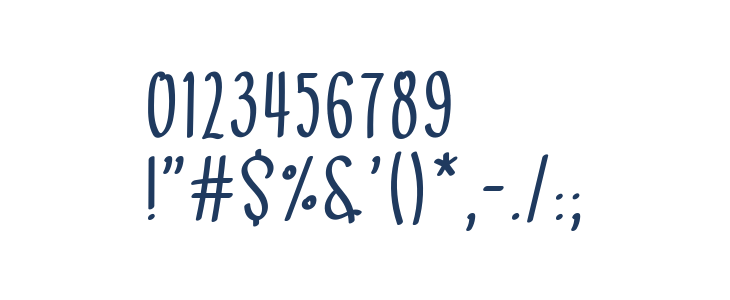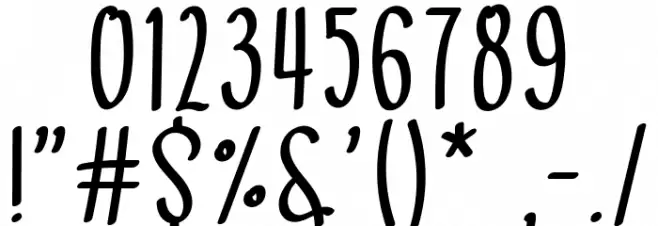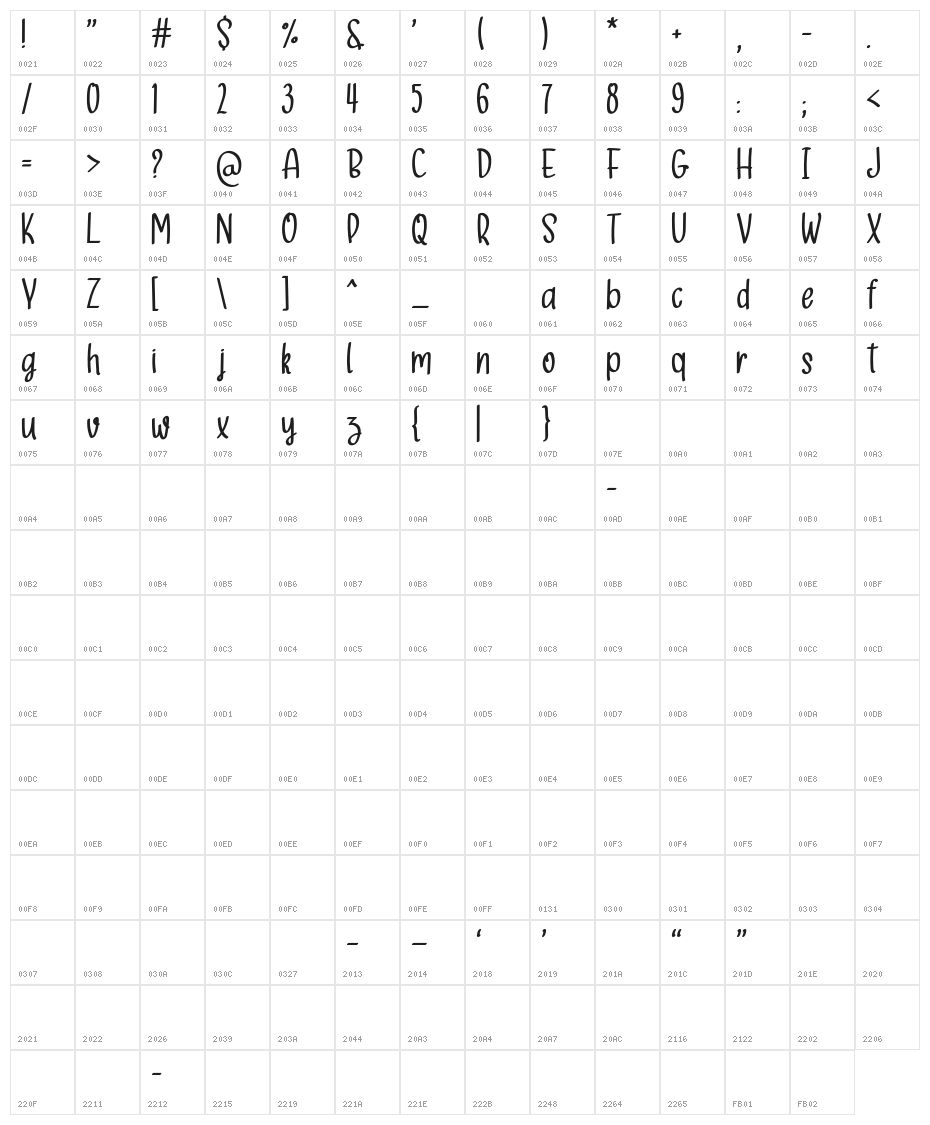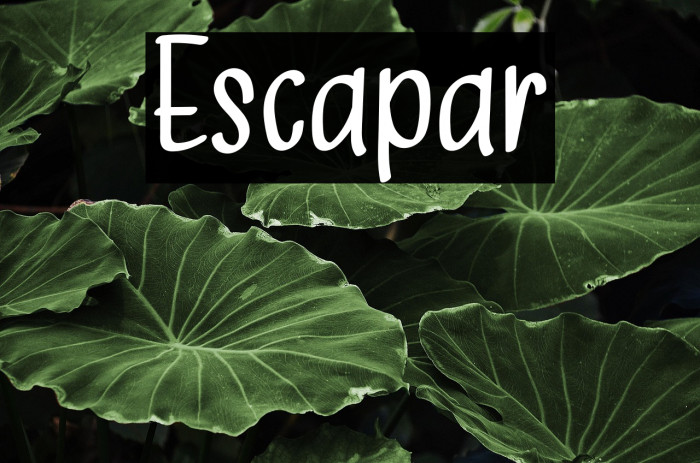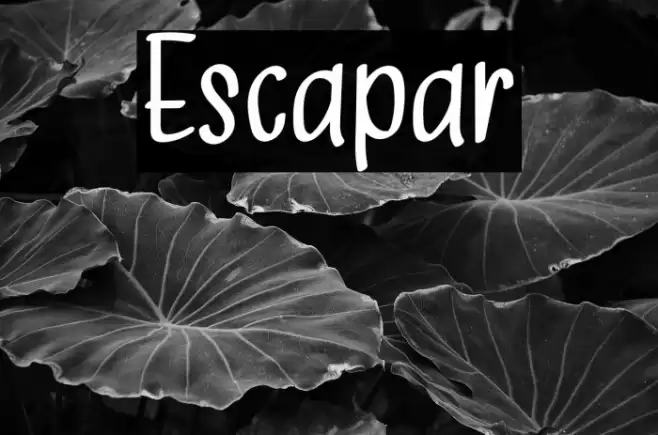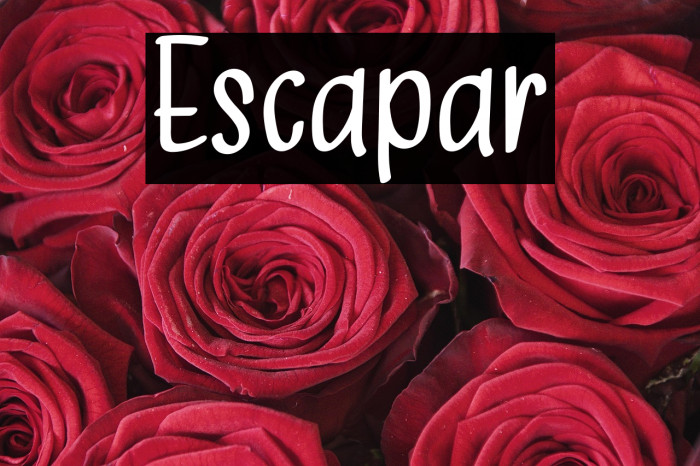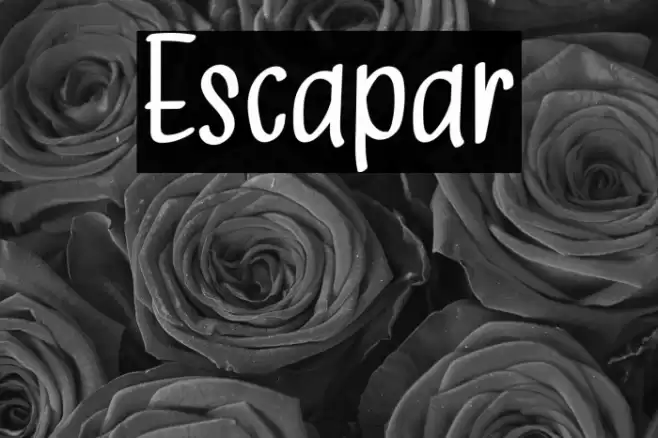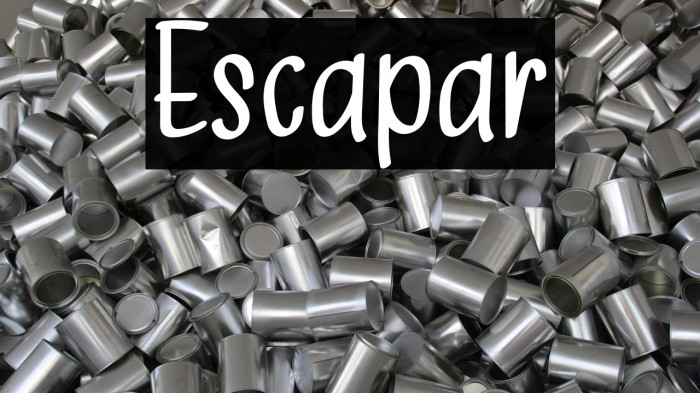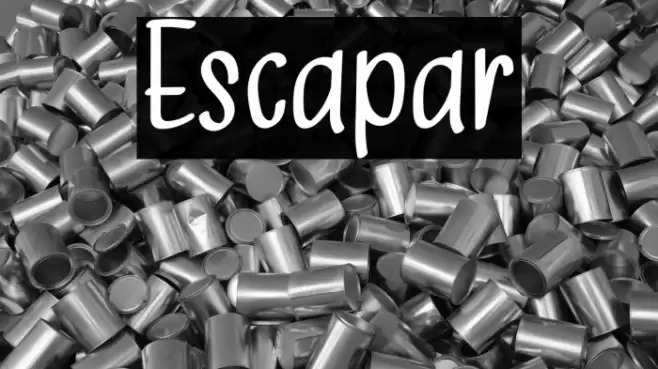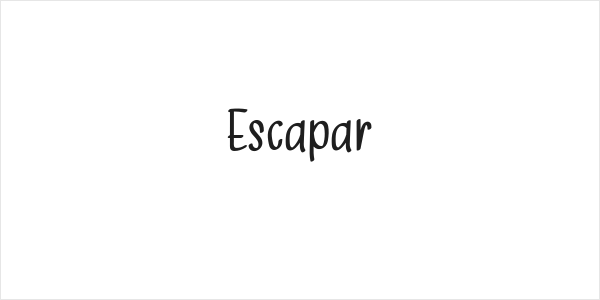
Escapar Font
Escapar Description
This font features a playful and casual handwritten style, characterized by its tall, narrow letters and slightly irregular strokes. The uppercase and lowercase letters maintain a consistent flow, with rounded edges and a slight slant that adds to its informal appearance. The numerals and special characters are crafted with the same playful touch, making them blend seamlessly with the alphabet. The overall look is friendly and approachable, suitable for designs that aim to convey warmth and personality.
| Use Case | Headlines, Informal text, Branding |
| Proposed Projects | Ideal for greeting cards, children's books, playful branding, and social media graphics. |